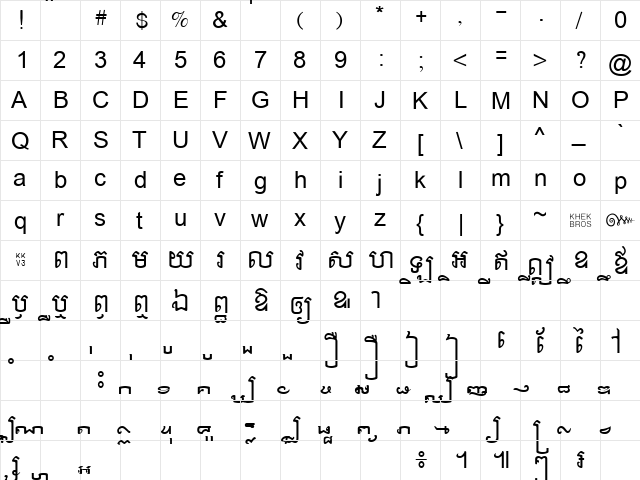
Anlongvill Khek 1 Fixed Regular
Design Context for Anlongvill Khek 1 Fixed Typeface
Anlongvill Khek 1 Fixed is a composed and adaptable typeface that performs quietly and consistently across a wide range of design contexts.